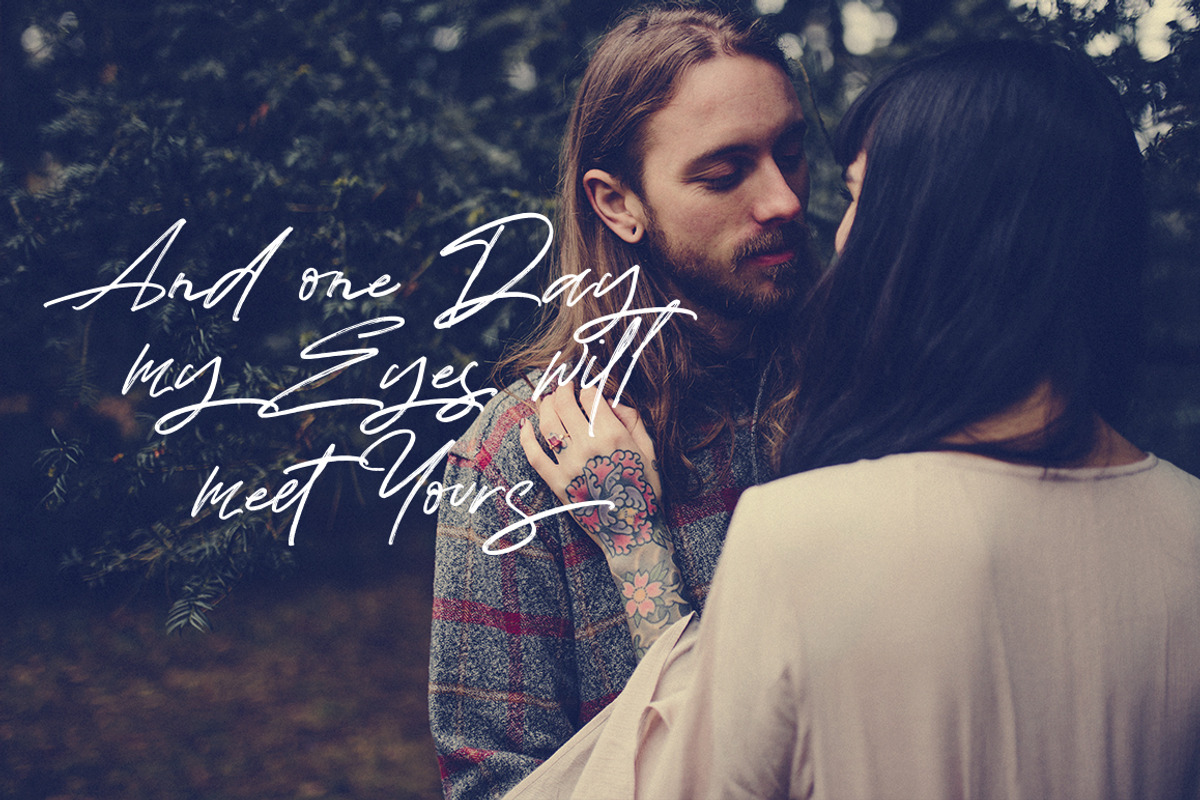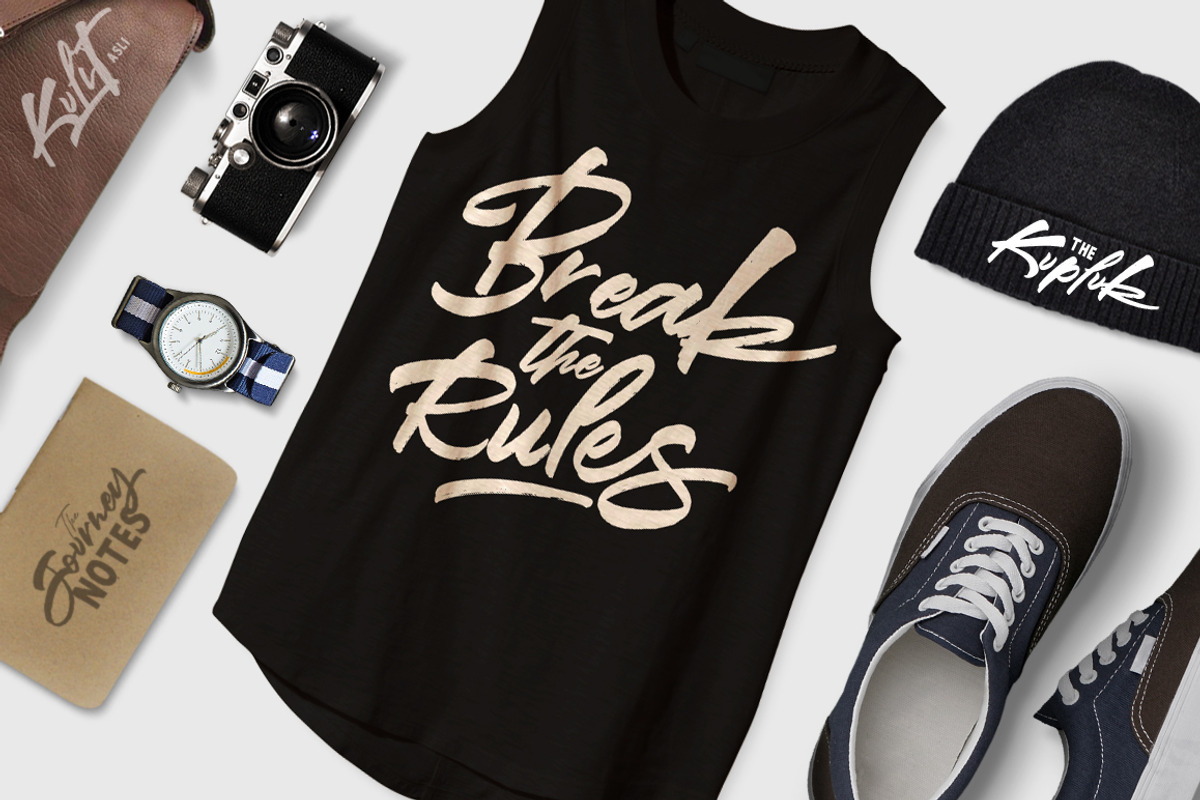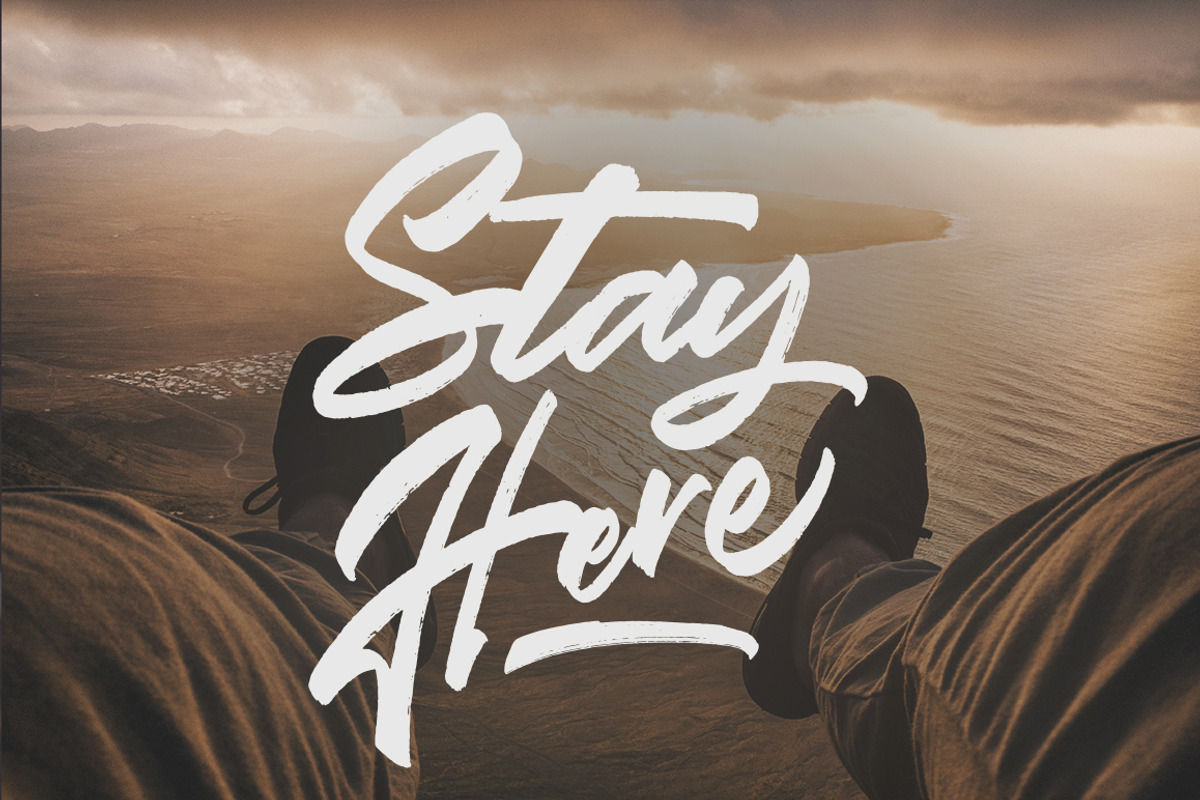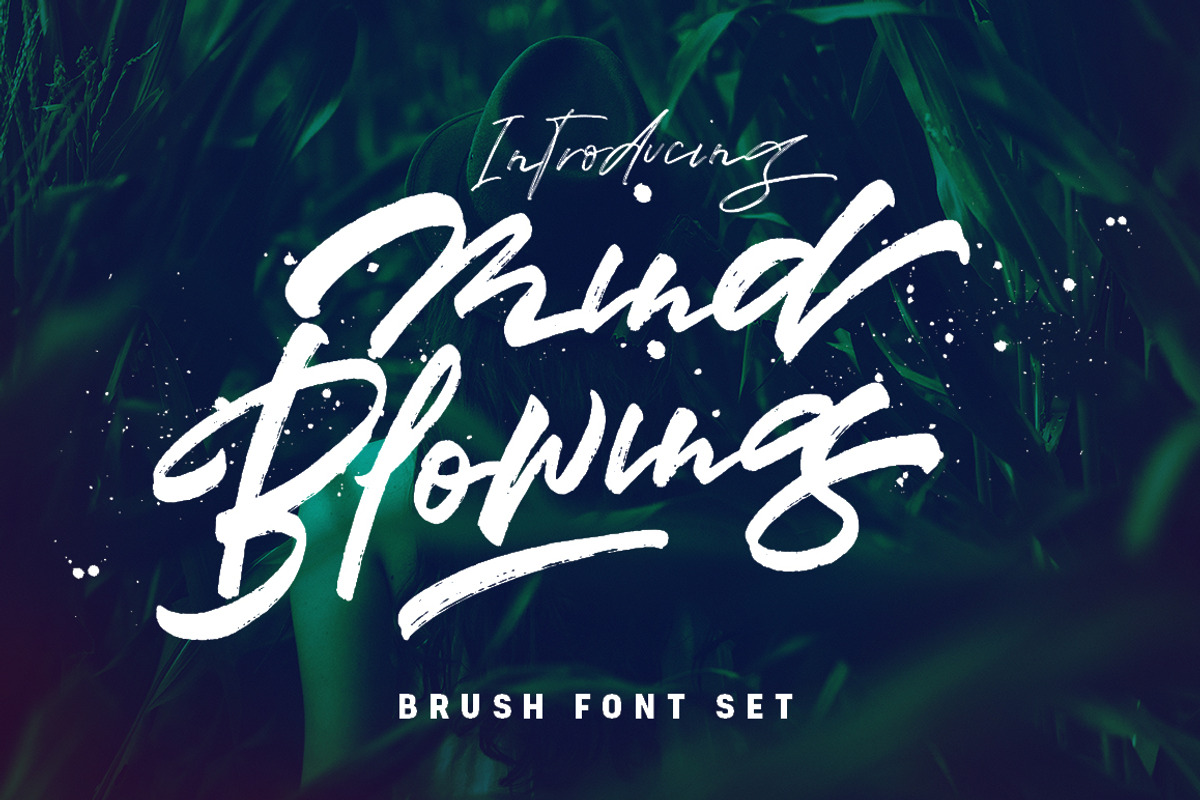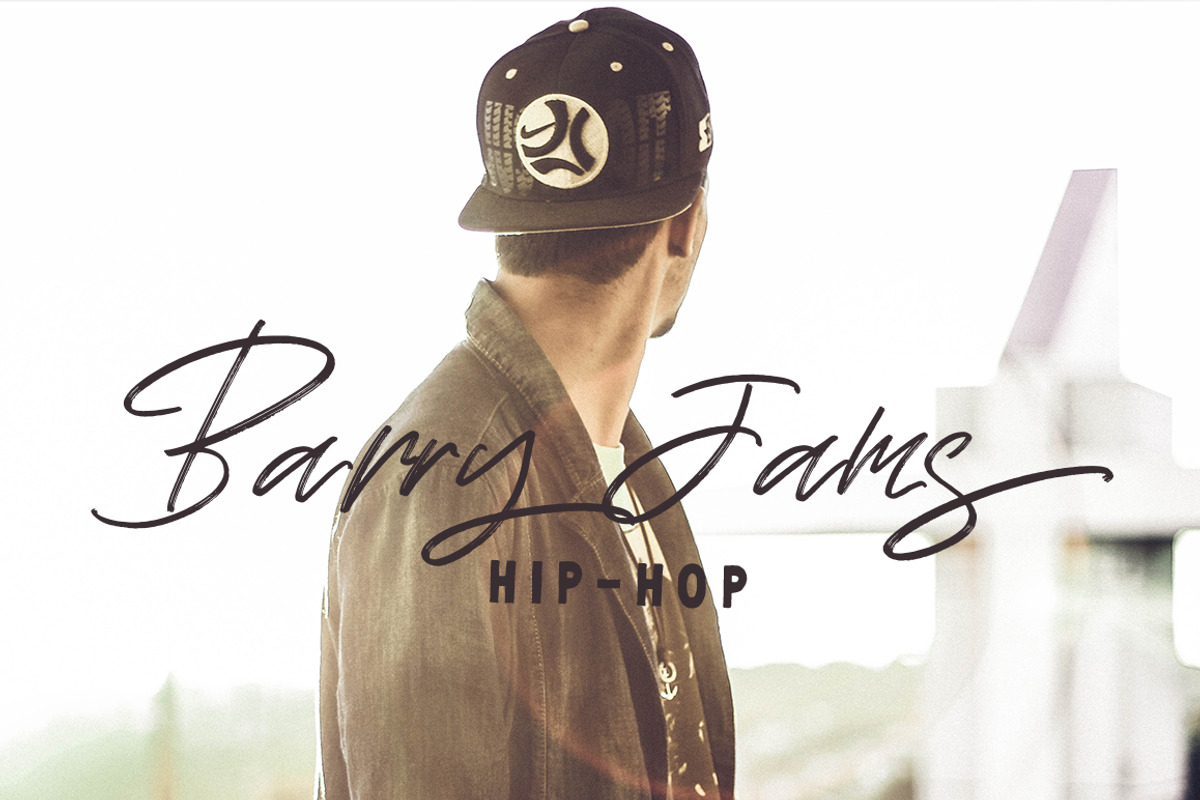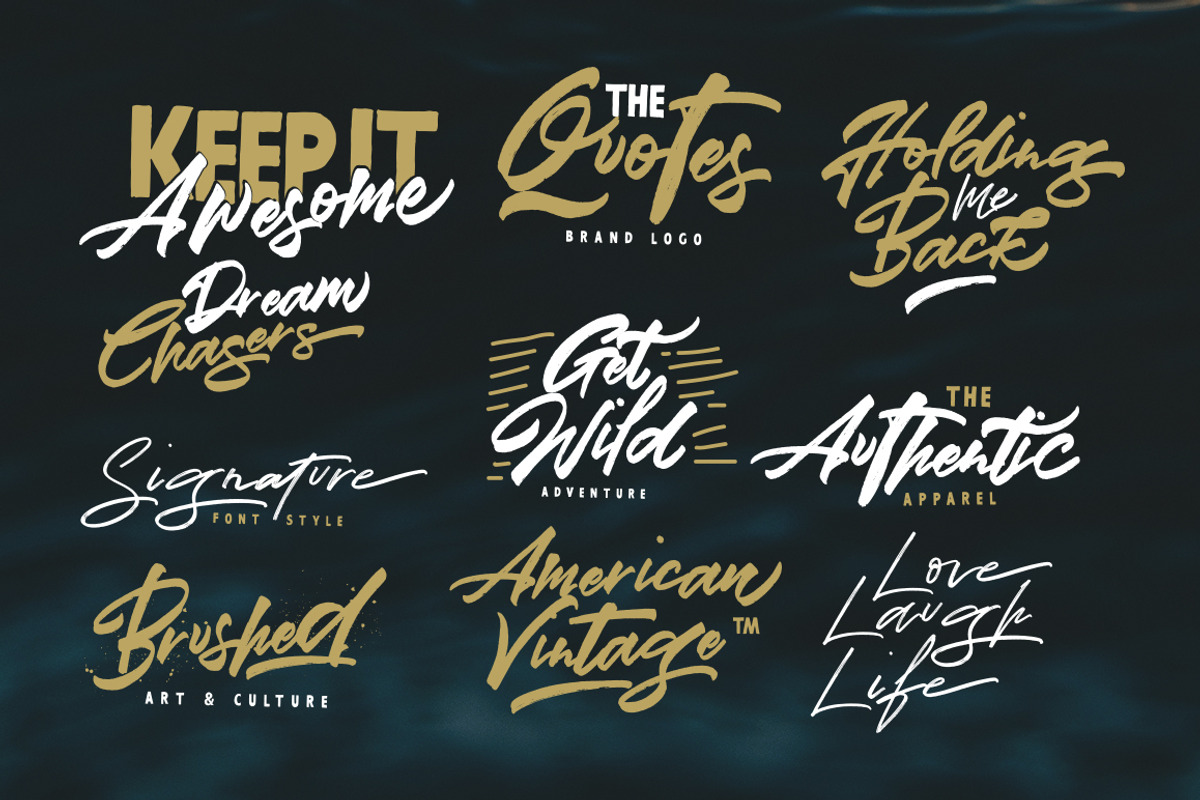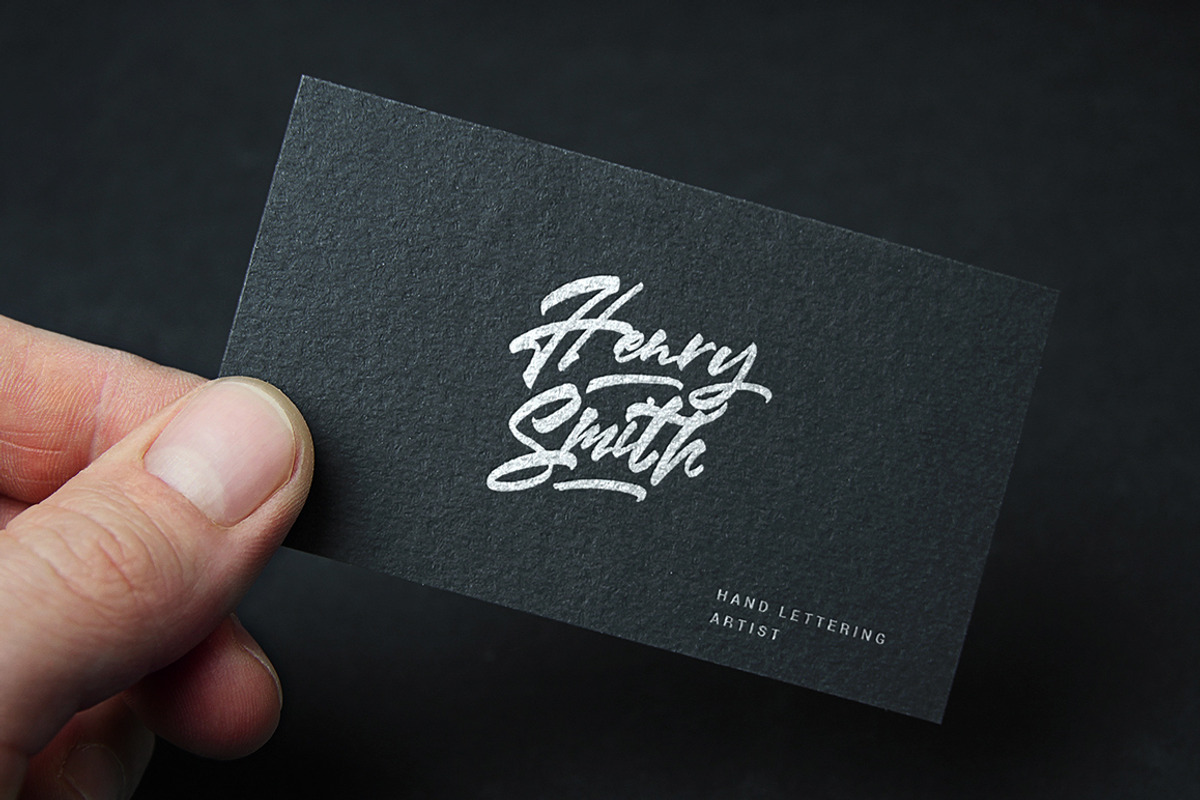
Mind Blowing 3 Brush Font Set 40%OFF
Mind Blowing 3 Brush Font Set 40%OFF by Dirtyline Studio is a font selected for branding, posters, packaging, typography.
Why Mind Blowing 3 Brush Font Set 40%OFF is worth a look
Mind Blowing 3 Brush Font Set 40%OFF by Dirtyline Studio fits naturally into Branding, posters, packaging, typography.